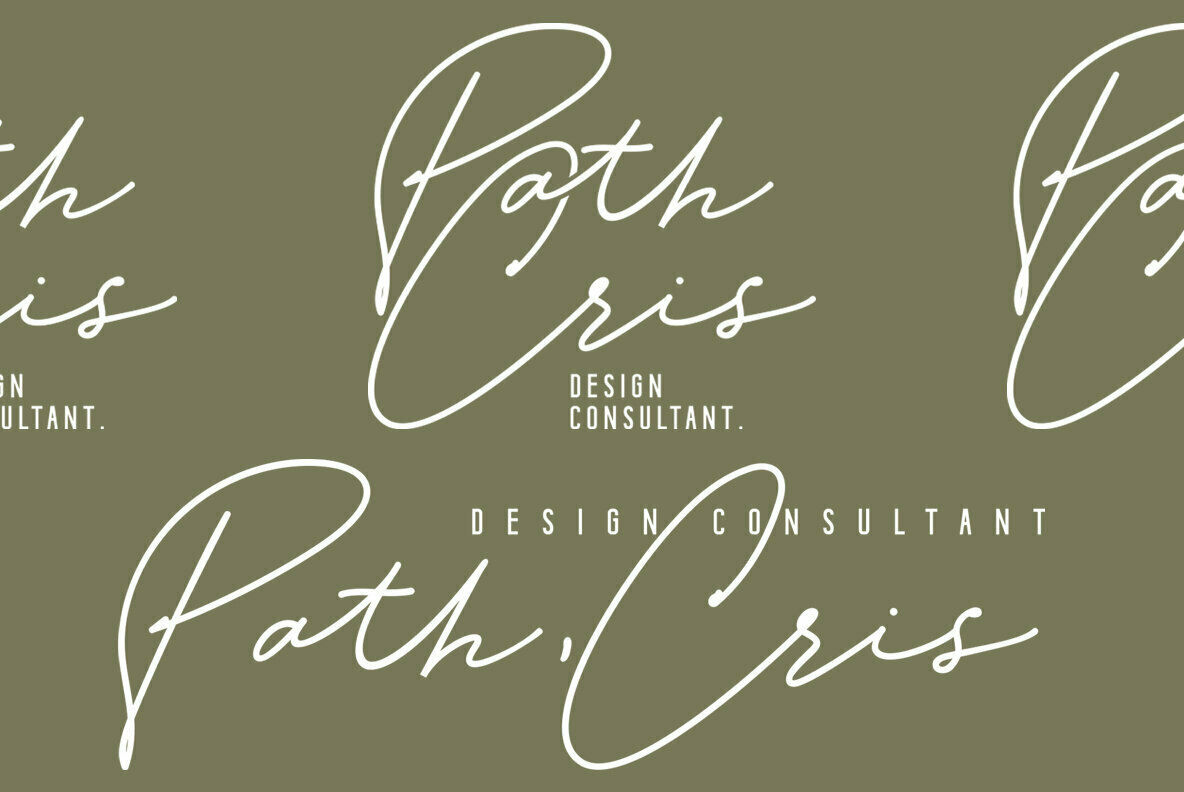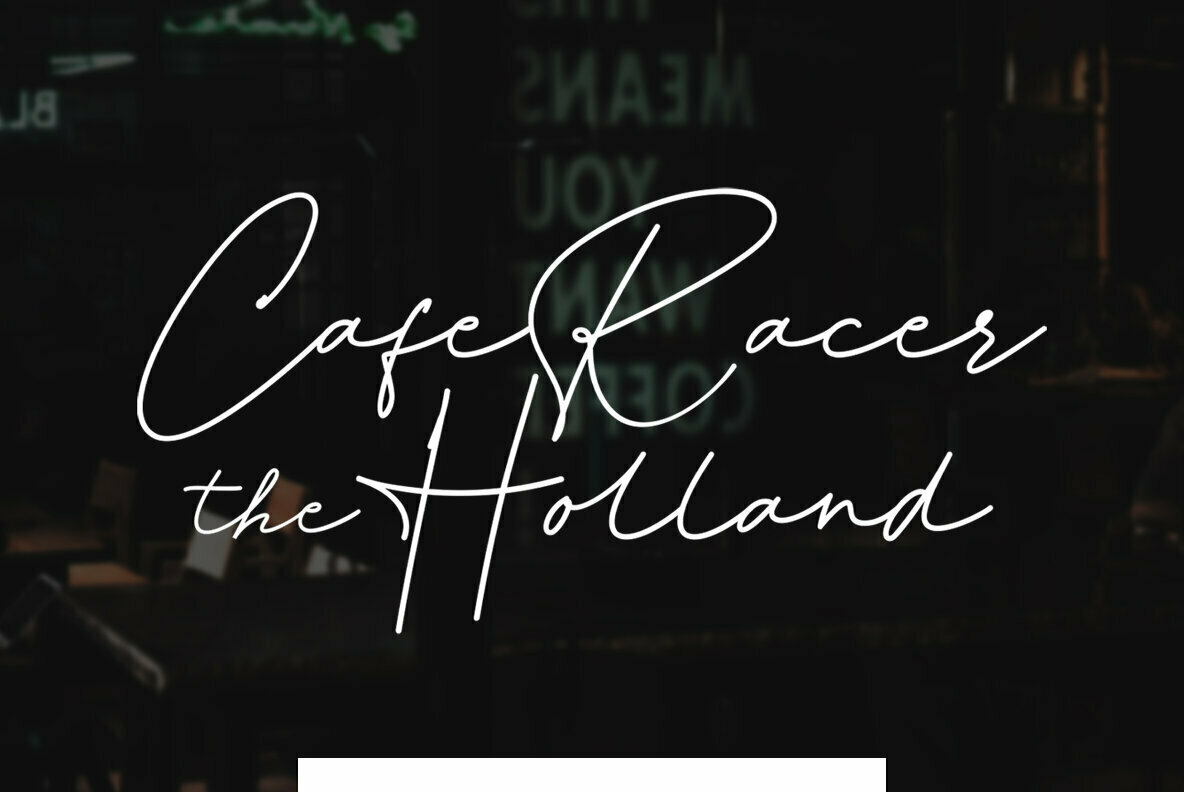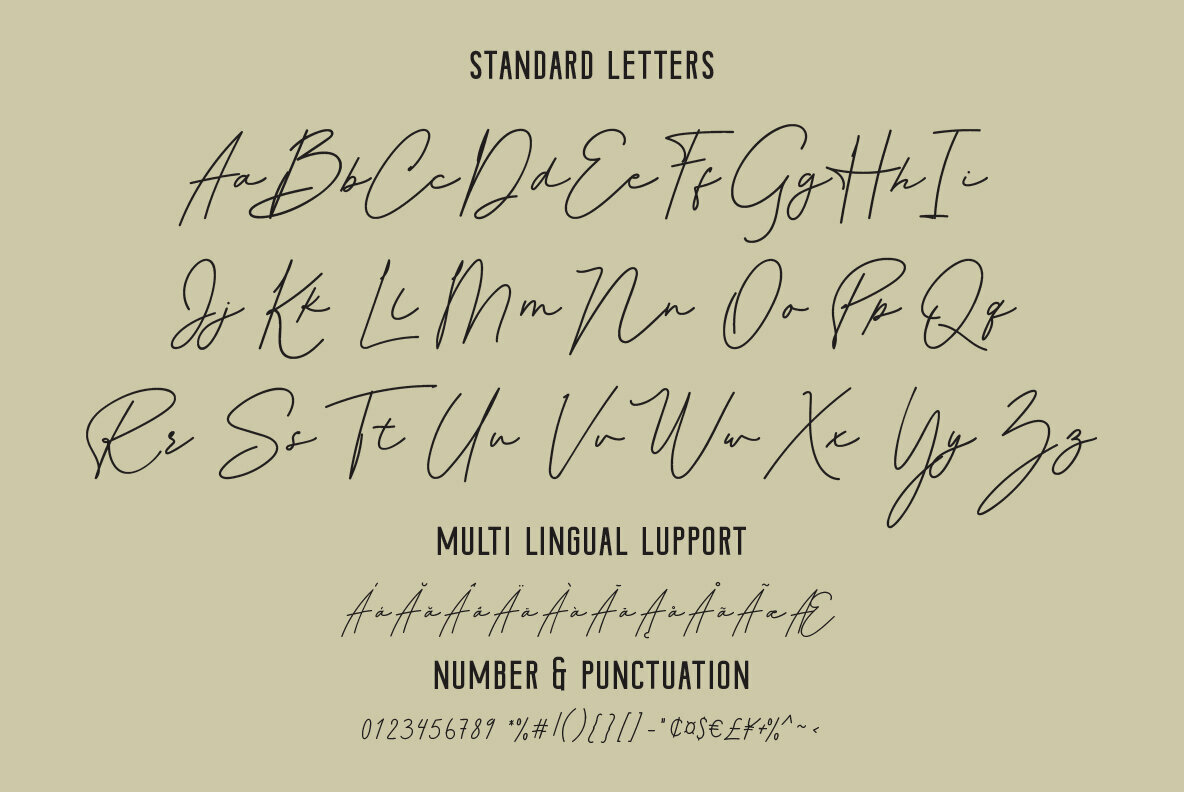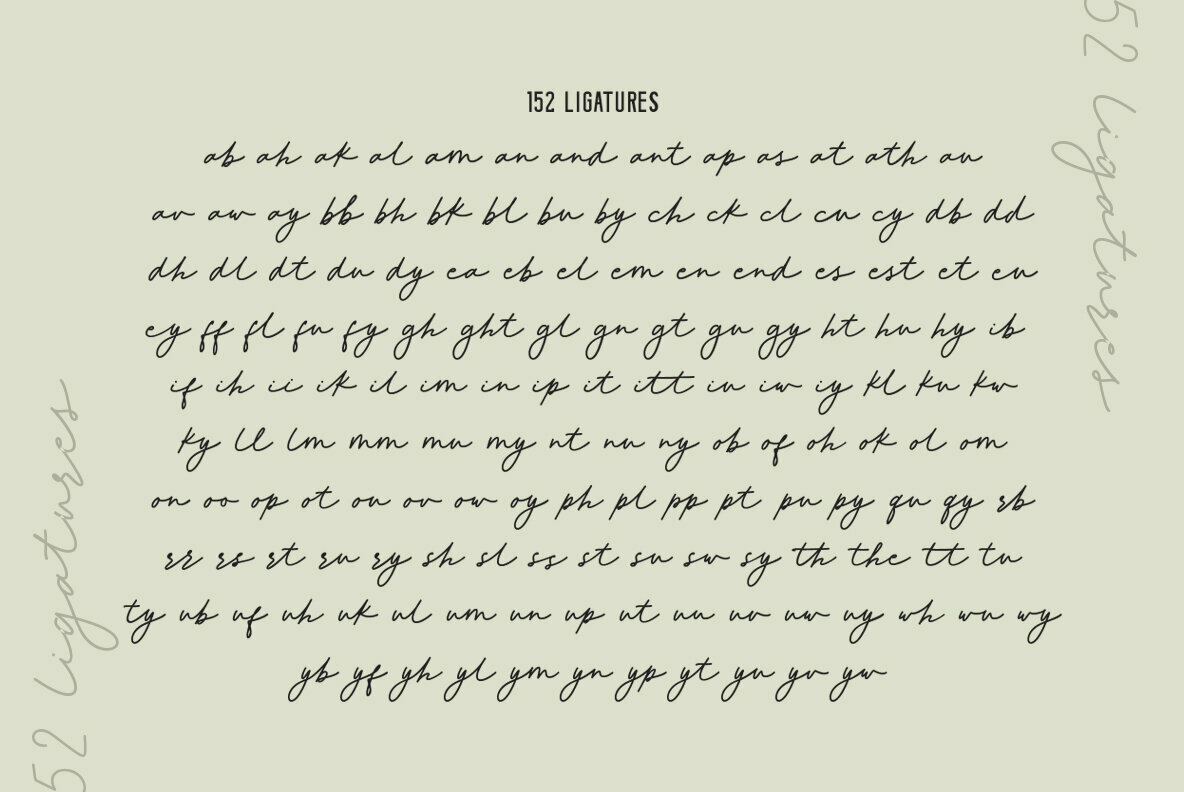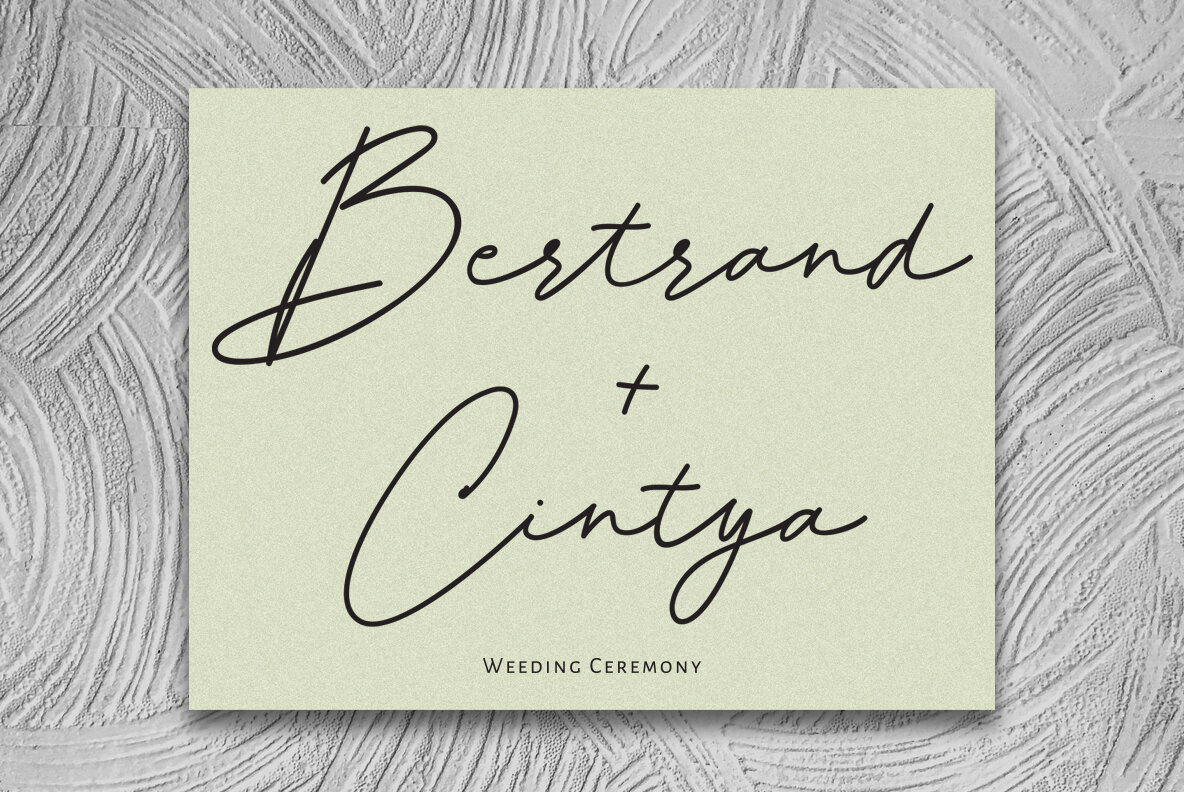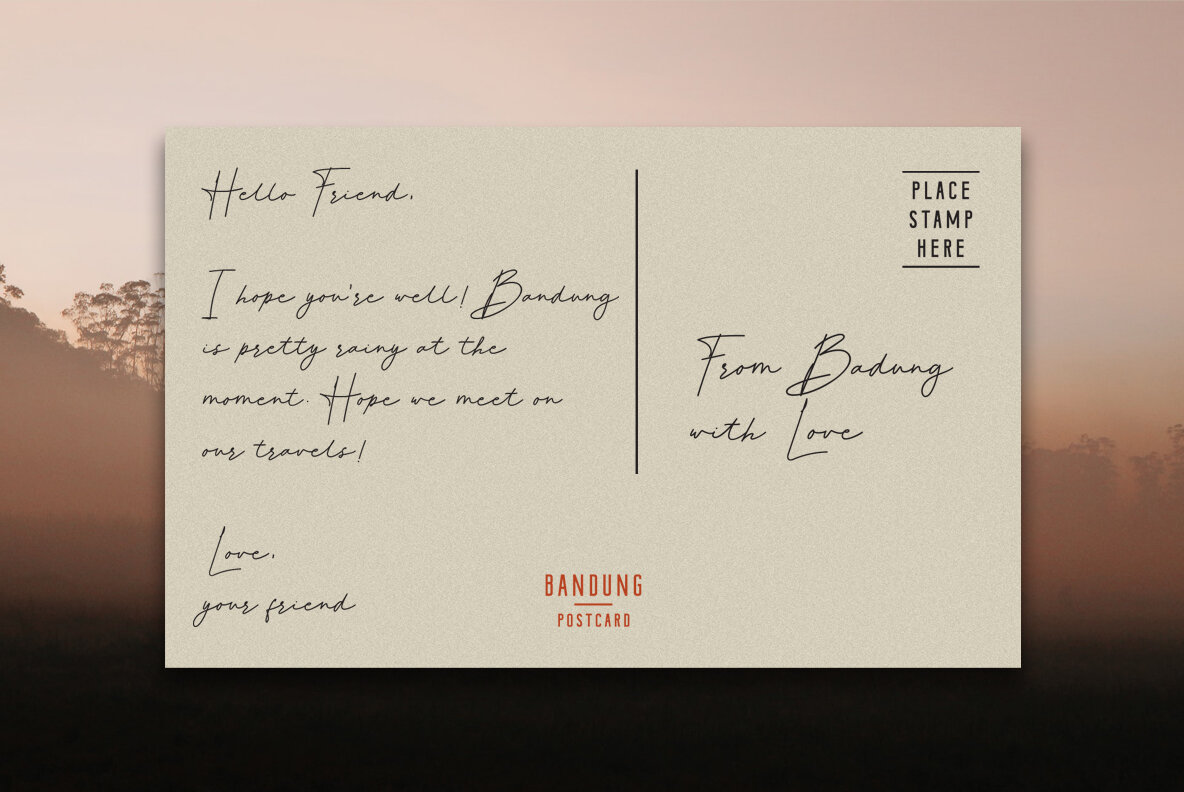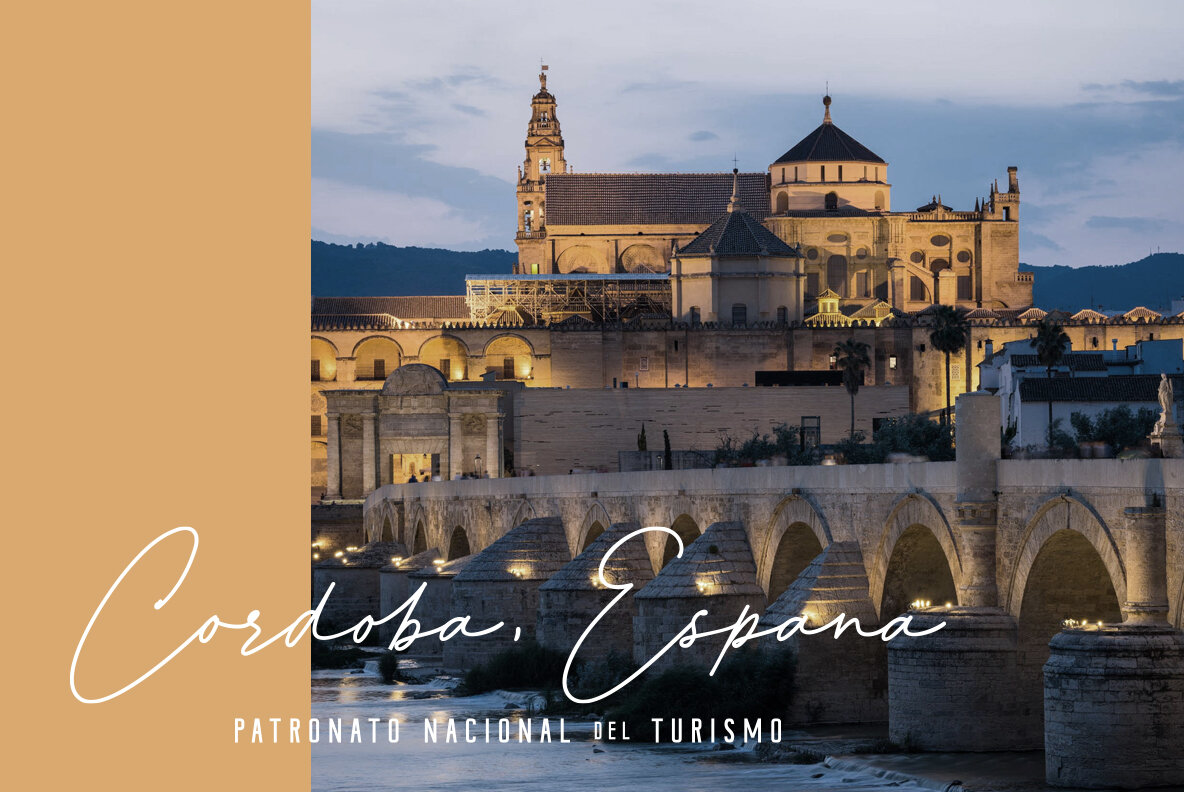
Whiteflower Font
Whiteflower Regular
Whiteflower presents itself as a refined monoscript font, embodying a clean aesthetic ideal for an array of creative projects. From branding to wedding invitations and labels, its versatile charm makes it a fitting choice for designers seeking seamless elegance in typography. Features:Whiteflower: A Monoscript Font for Elegant Designs